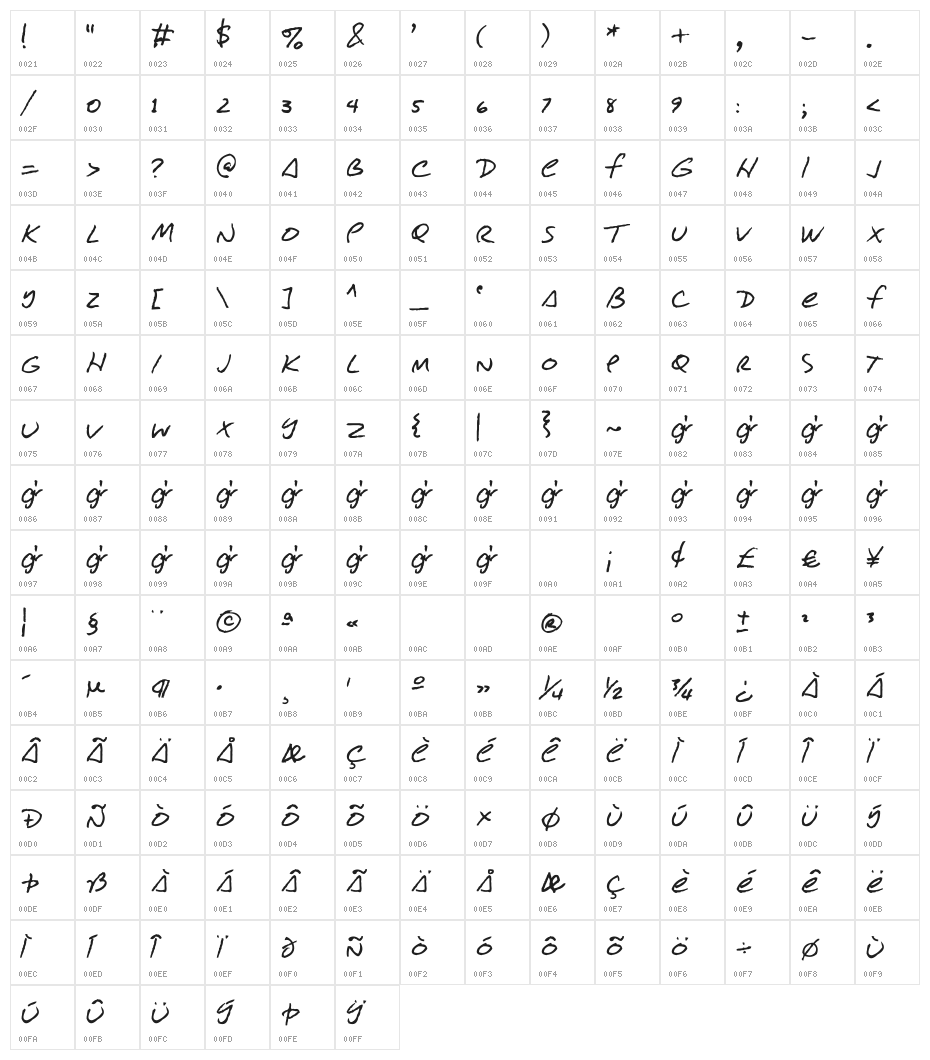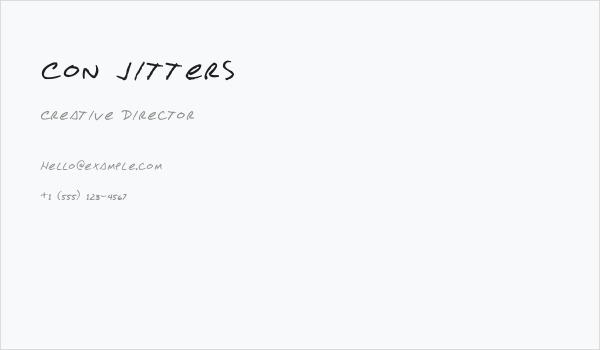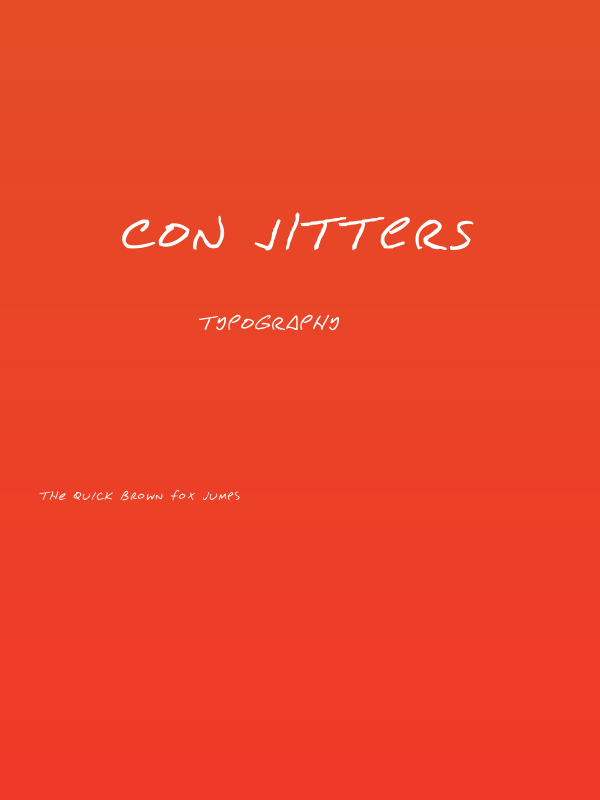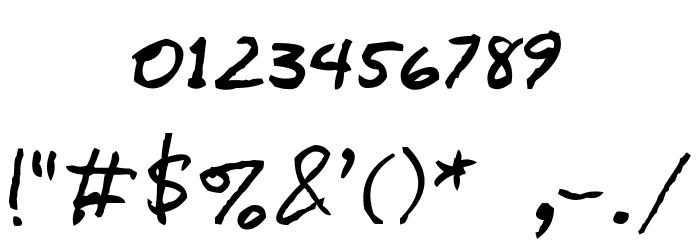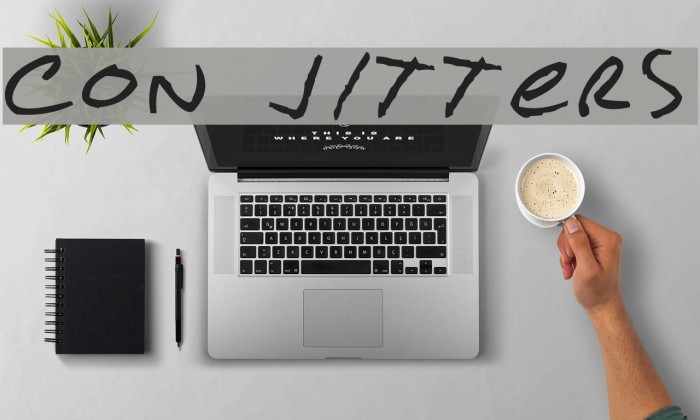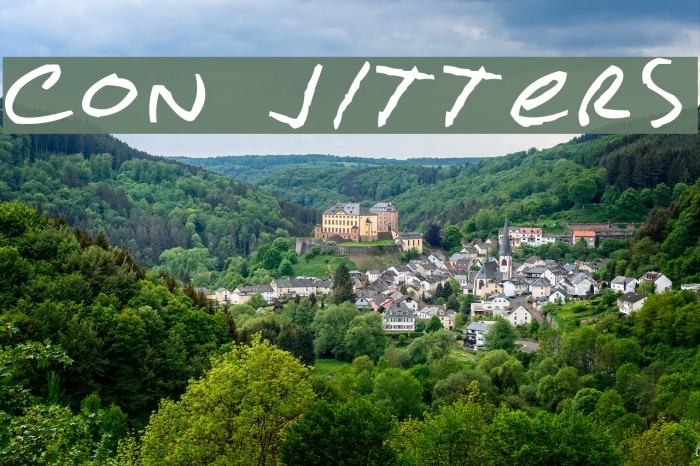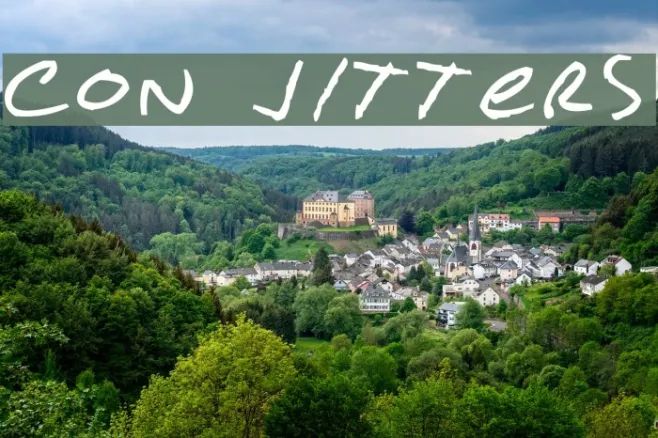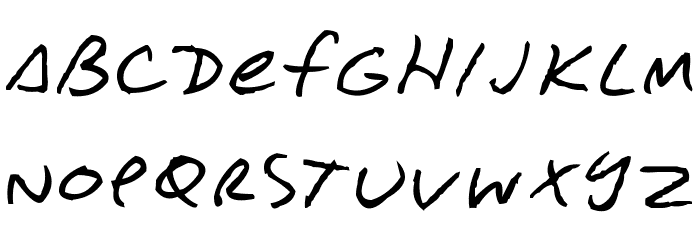
Con Jitters Font
Con Jitters Description
This font exudes a playful and energetic vibe, characterized by its handwritten style that mimics a casual, yet dynamic script. The letters are slightly slanted, giving a sense of movement and spontaneity. The strokes are uneven, with varying thickness that adds to the informal and lively appearance. The characters are well-spaced, maintaining readability while preserving the font's whimsical nature. Its unique style makes it stand out, suitable for projects that require a personal touch or a creative flair.
| Proposed Projects | Ideal for greeting cards, children's books, creative posters, and personal branding. |